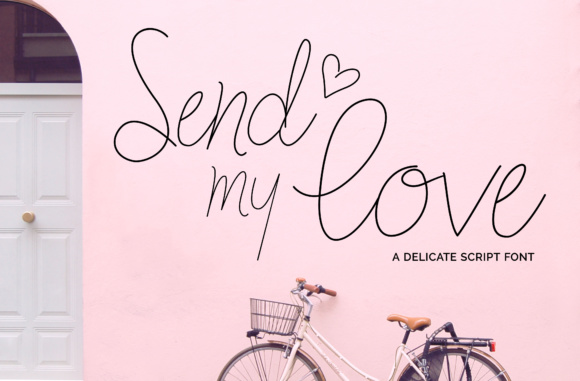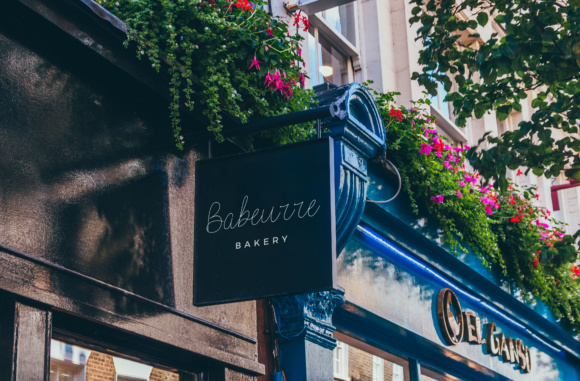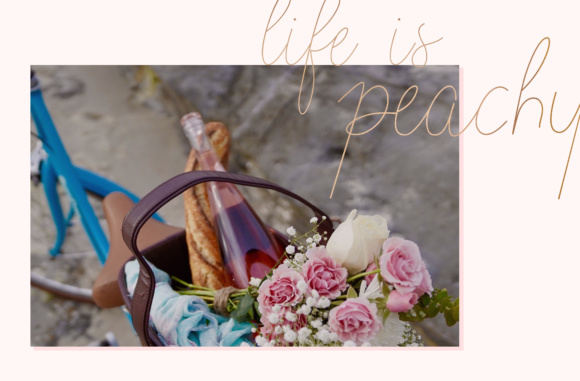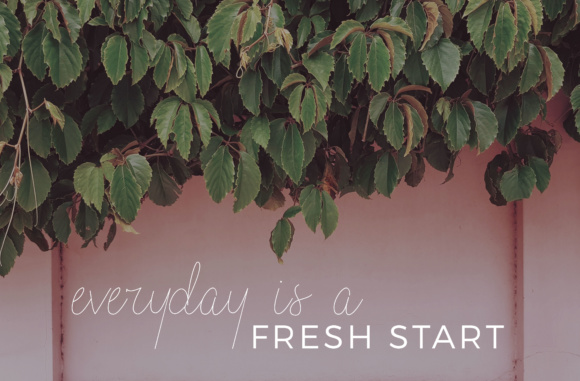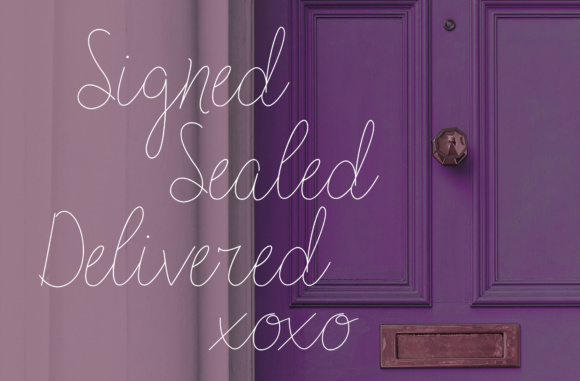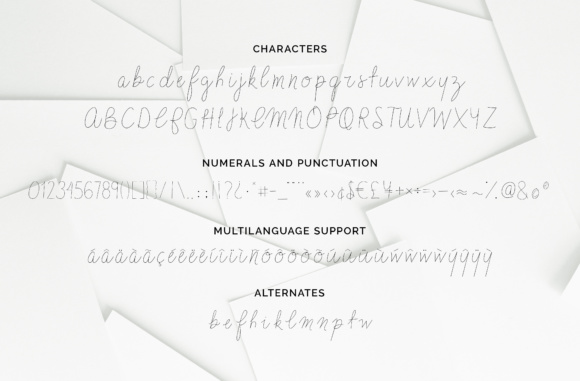
Send My Love Font
Send my Love is a delicate and feminine font for your graphic design projects, whether it’s branding, print, or digital! This thin, delicate monoline font is a great way to add some subtle charm to your work.